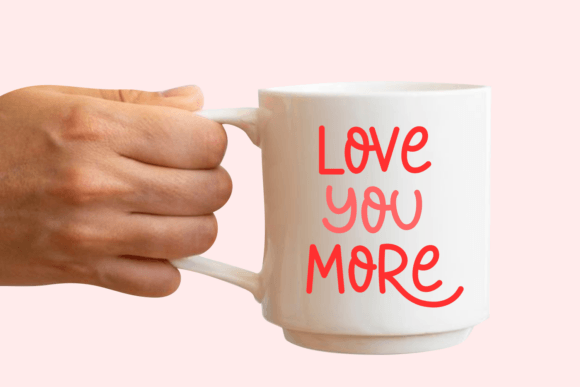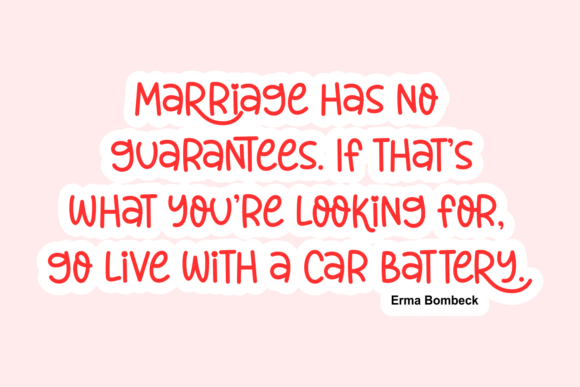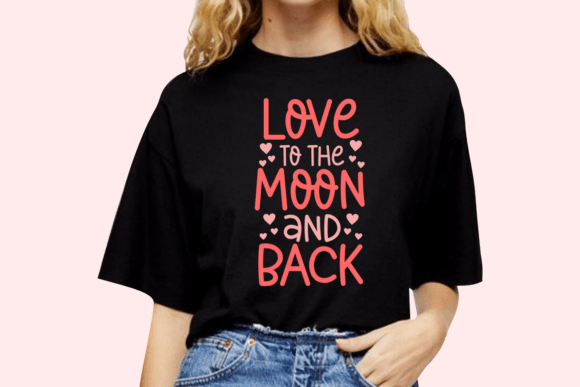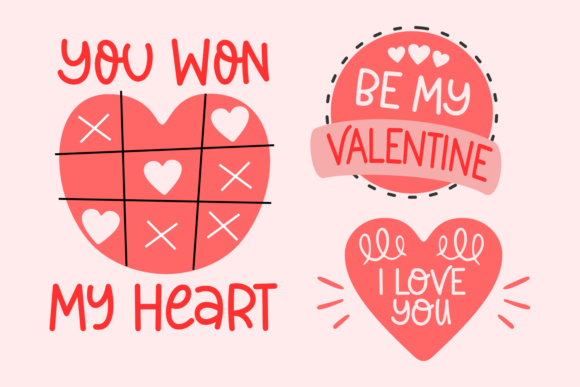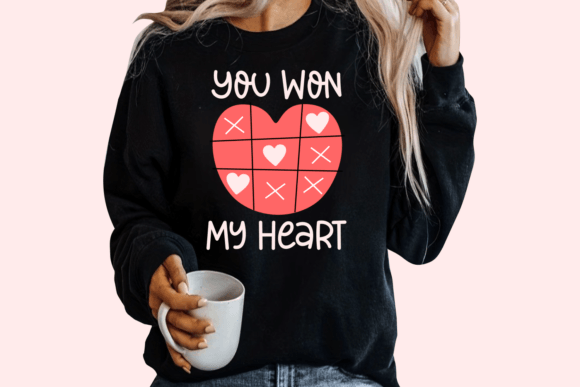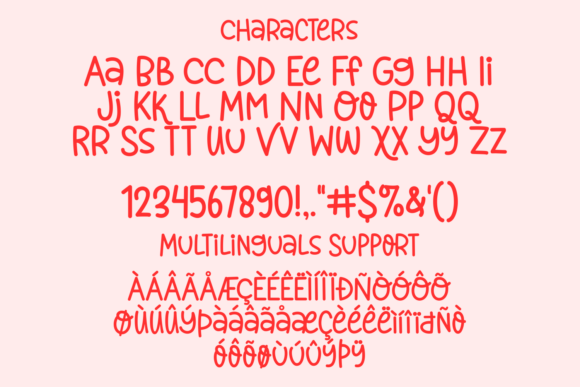
Introduction to Hearts Valentine Font Font
Fonts play a crucial role in design, and the Hearts Valentine Font font is a typeface that brings both character and versatility to any project. Whether you’re working on a branding project, a website, or a print design, the Hearts Valentine Font font offers a unique style that can elevate your work.
Introducing Hearts Valentine, an elegantly styled font that embodies the warmth of love and deep affection.
This passionately crafted typeface adds an exquisitely unique touch to your artworks Whether it graces the curves of an invitingly cosy mug, adorns the cotton weave of a modernistic t-shirt, or highlights an evocative piece of wall art, Hearts Valentine enhances the beauty of your creative pieces.
Key Features of Hearts Valentine Font Font
Why Choose Hearts Valentine Font Font?
The Hearts Valentine Font font is more than just a typeface – it’s a design tool that helps you communicate your message with style and clarity. Its unique character set and versatile design make it suitable for a wide range of applications, from elegant invitations to bold headlines.
With its carefully crafted letterforms and balanced proportions, the Hearts Valentine Font font ensures readability and visual appeal across all mediums.
What makes Hearts Valentine Font font special?
The Hearts Valentine Font font stands out with its unique design, exceptional readability, and versatility across various design applications.